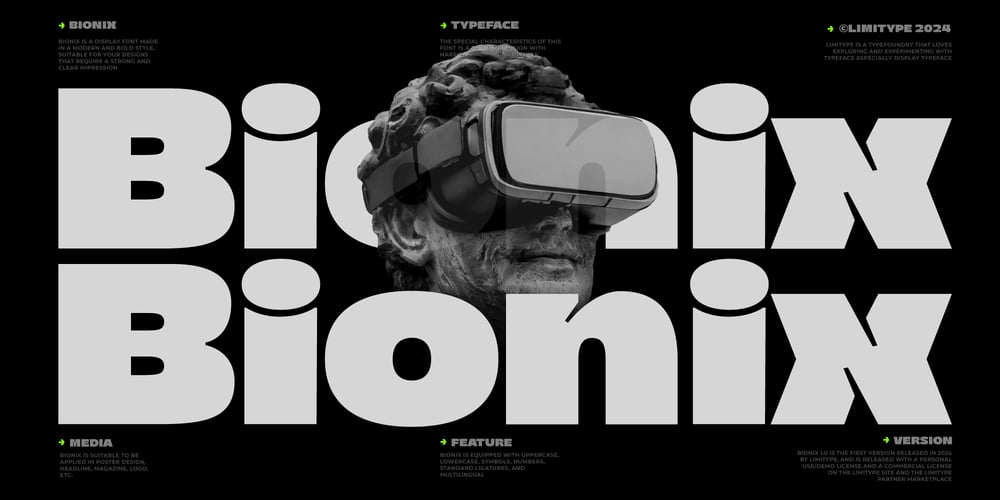
Bionix Font Family was designed by Muhammad Muammar and published by limitype. Bionix contains 1 styles and family package options. Bionix is a sans display font made with a bold and modern impression, equipped with inktrap which adds personality to this font. This font is suitable for designs that require a strong and clear impression when used in media but is still modern and fun. Bionix is suitable for headlines, posters, banners, logos, etcBionix version 1.0 is available with: Uppercase Lowercase Numbers Symbols Standard Ligatures And multilingual